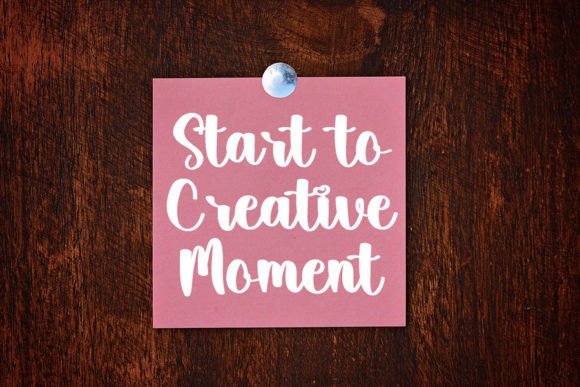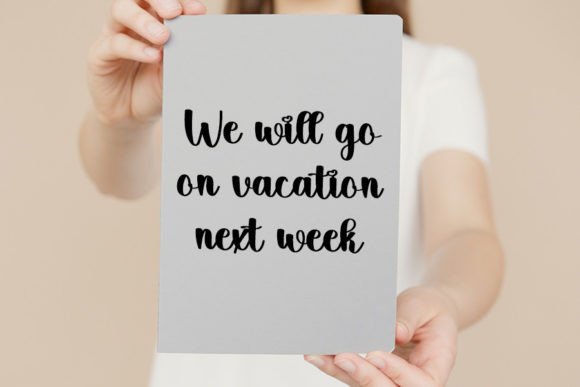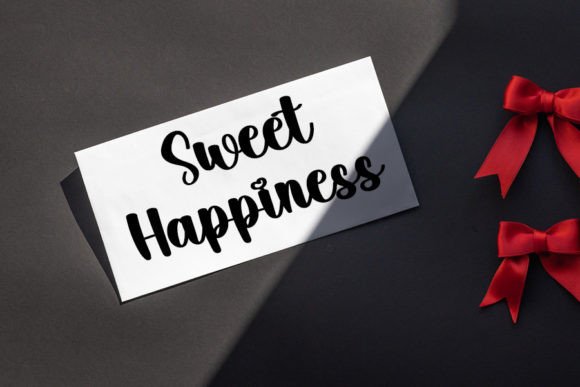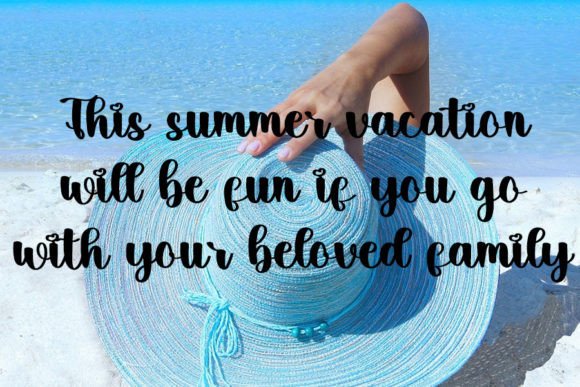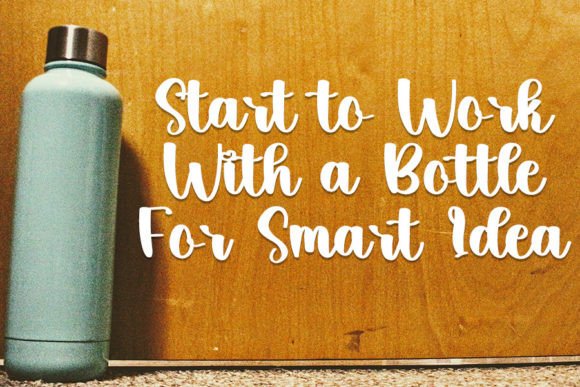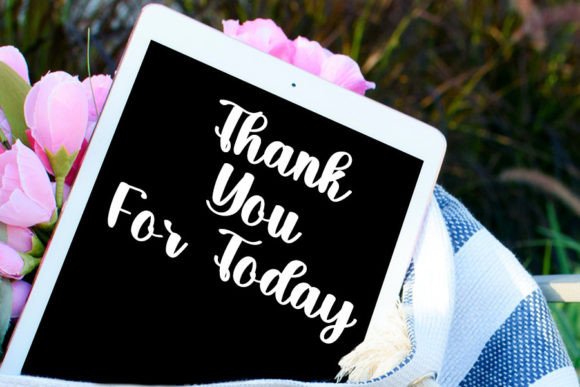
Introduction to Slimsimple Font
Remember that moment when you stumbled upon the perfect design resource for your creative project? The one that made all the difference between a good design and a great one? For many designers, that moment comes when they discover a high-quality font that elevates their work to the next level.
That’s exactly what the Slimsimple Font does – it adds a touch of elegance and charm to any design project. Whether you’re working on a branding campaign, a wedding invitation, or a social media graphic, this gorgeous handwritten font is sure to make your design stand out. With its transparent background and PUA encoded glyphs, you can easily access all the swashes and styles you need to create a truly unique and eye-catching design.
Key Features of Slimsimple Font
- High-quality design: The Slimsimple Font is designed to meet the needs of creative projects, offering a sophisticated and elegant look.
- High-resolution design: The Slimsimple Font is designed at 300 DPI, making it suitable for use in high-resolution designs, including print materials and digital displays.
- Unique characteristics: The font features a clean and minimalist design, with a unique blend of modern and classic elements that set it apart from other fonts.
Honest Review: Slimsimple Font
As a designer, I’m always on the lookout for high-quality design resources to elevate my creative projects. The Slimsimple Font is one such resource that caught my attention. With a transparent background, it’s perfect for creating visually appealing graphics and designs.
- Elegant and modern design aesthetic
One of the standout features of the Slimsimple Font is its sleek and modern design aesthetic. It’s perfect for creating professional-looking designs for various industries, from fashion to technology.
- Only a single style is available (no bold or italic versions)
- May not be suitable for complex text-based designs
Overall, I’m impressed with the Slimsimple Font. It’s a high-quality design resource that’s perfect for creative projects. While it has some limitations, it’s still a great choice for designers looking for a modern and elegant font.
The Slimsimple Font is ideal for use in logos, branding materials, social media graphics, and other creative projects that require a high-quality and modern design element.